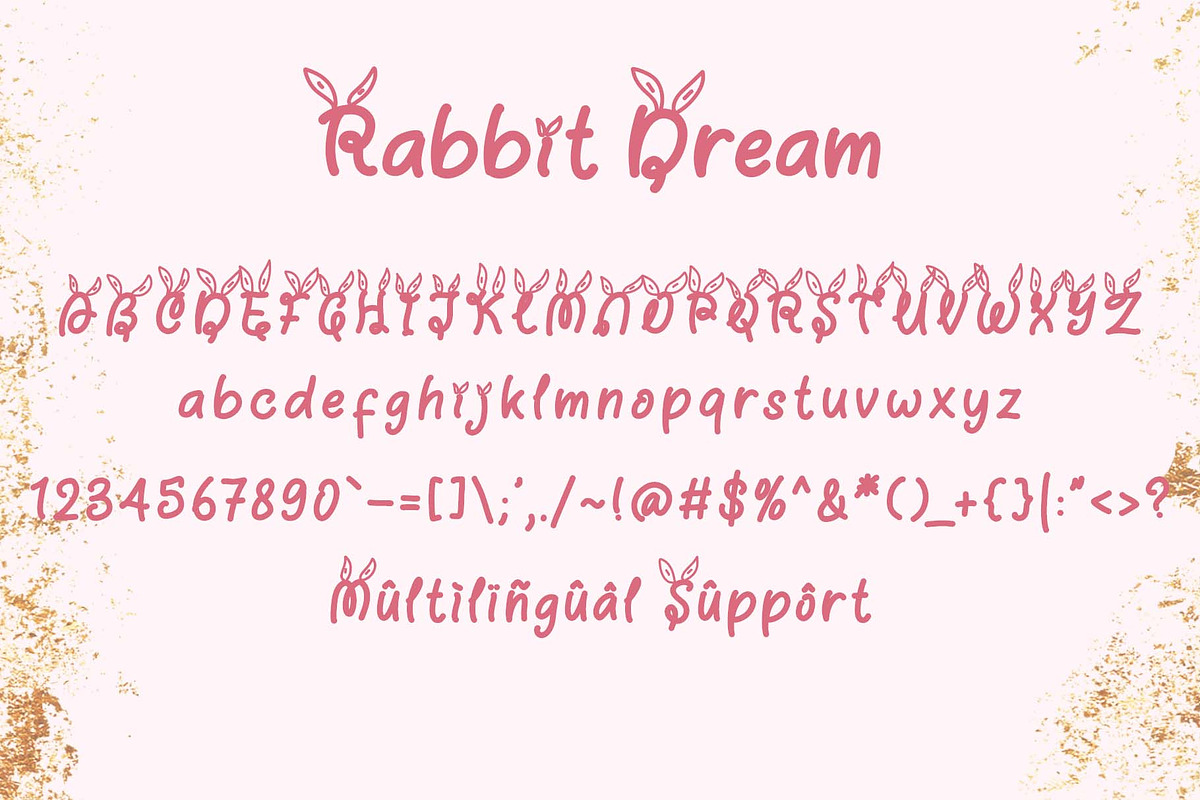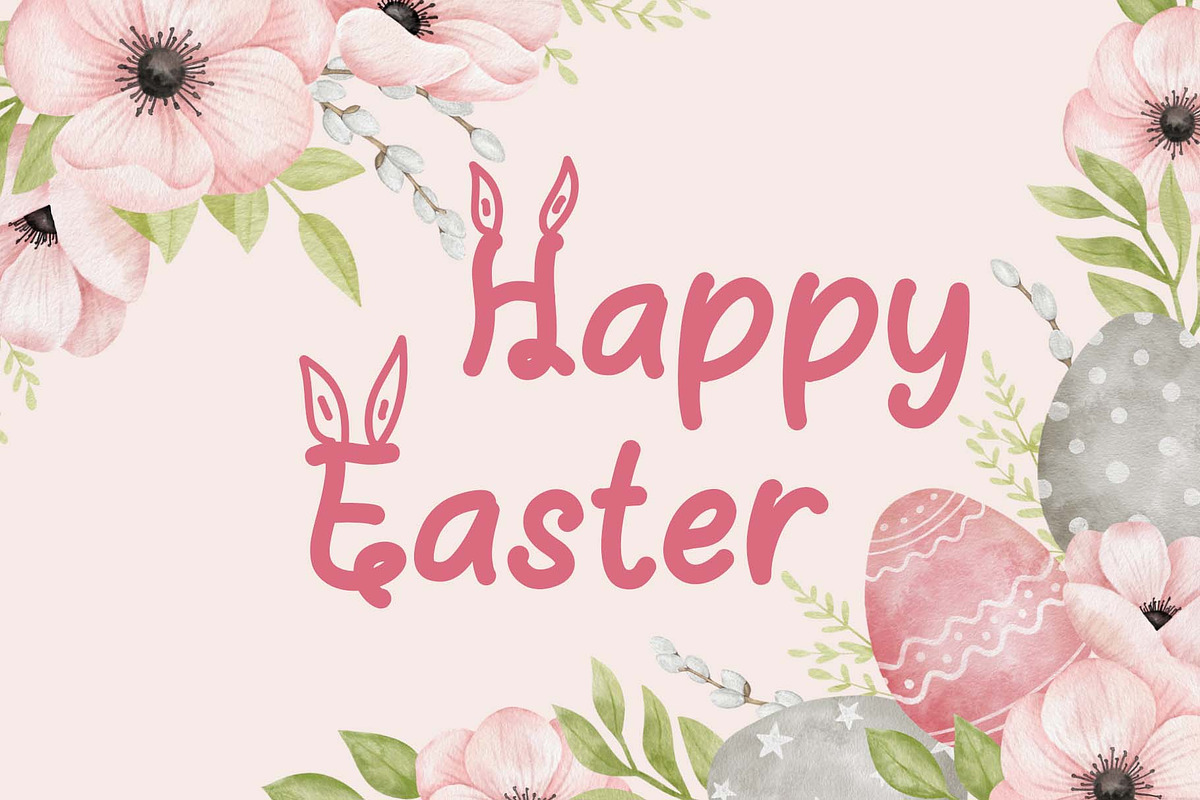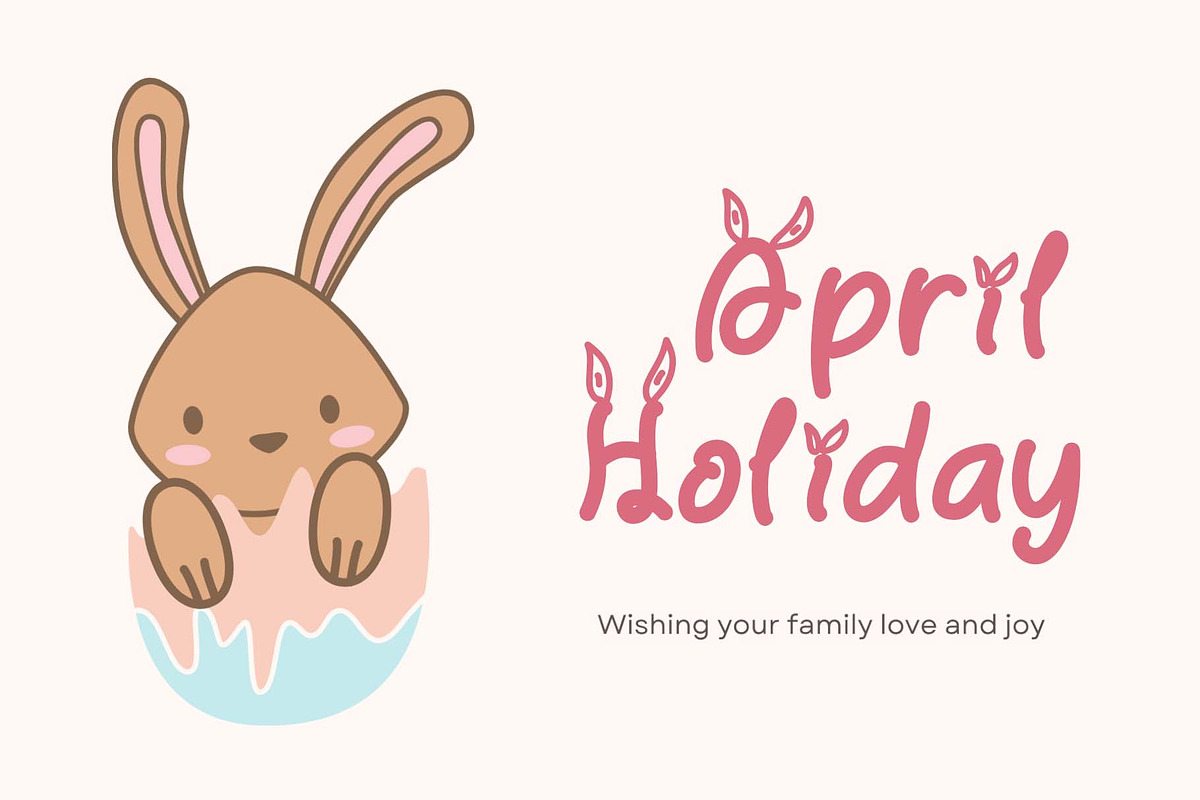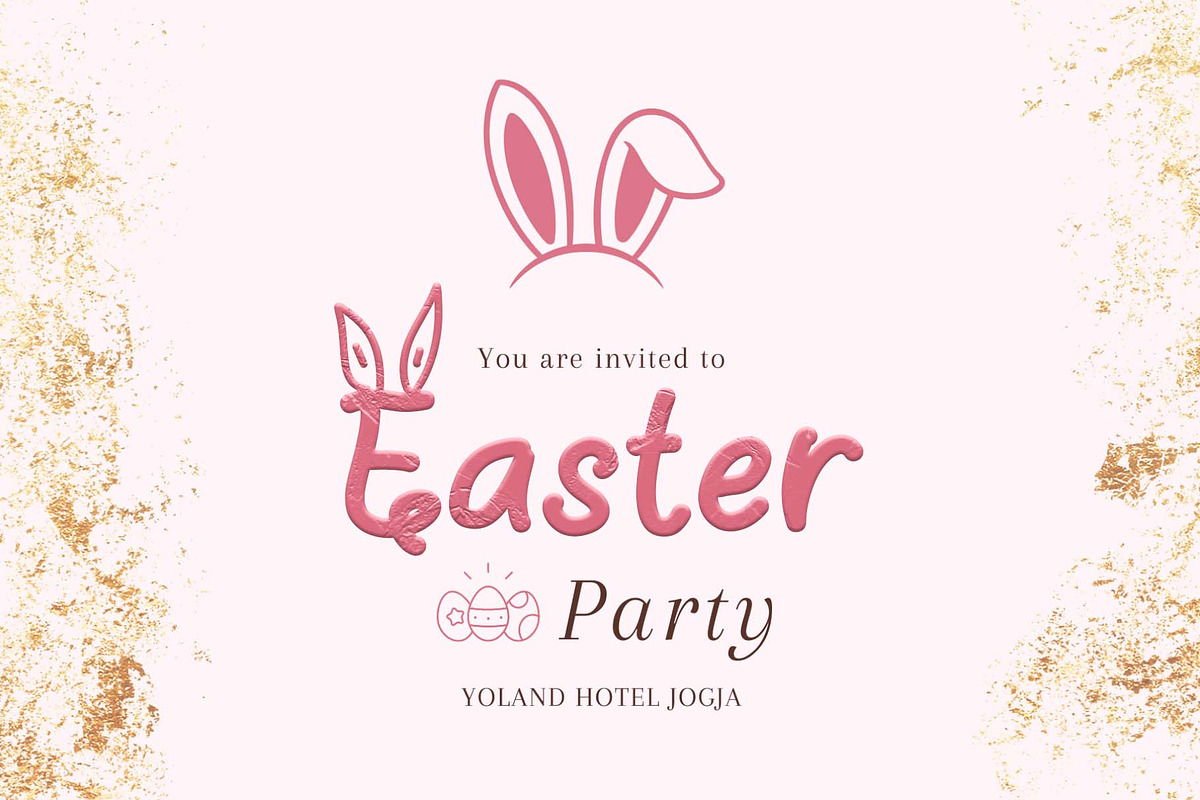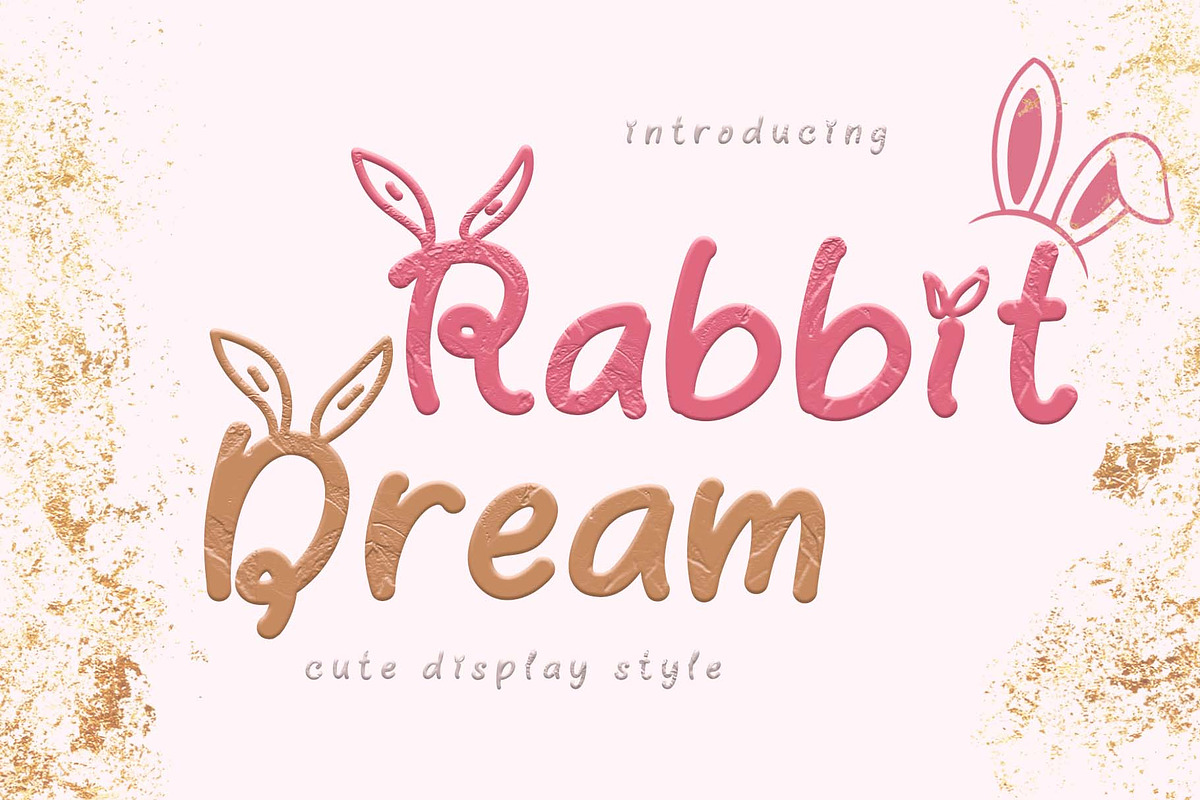
Rabbit Dream
"Rabbit Dream" is a unique display font. This font is decorated with bunny ears, so it looks very cute. Equipped with uppercase letters, lowercase letters, numerals, punctuation, and multilingual support. Very suitable for comics, Easter, logos, banners, posters, prints, branding, stickers, and others.